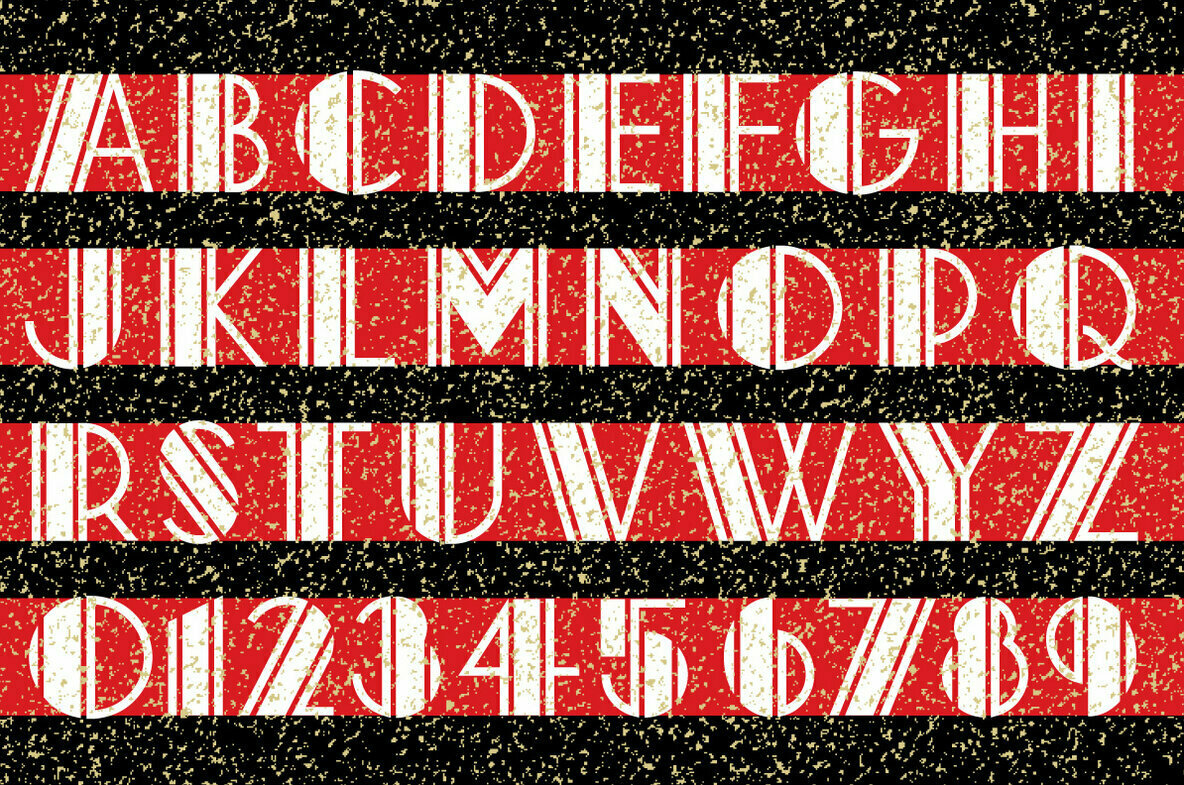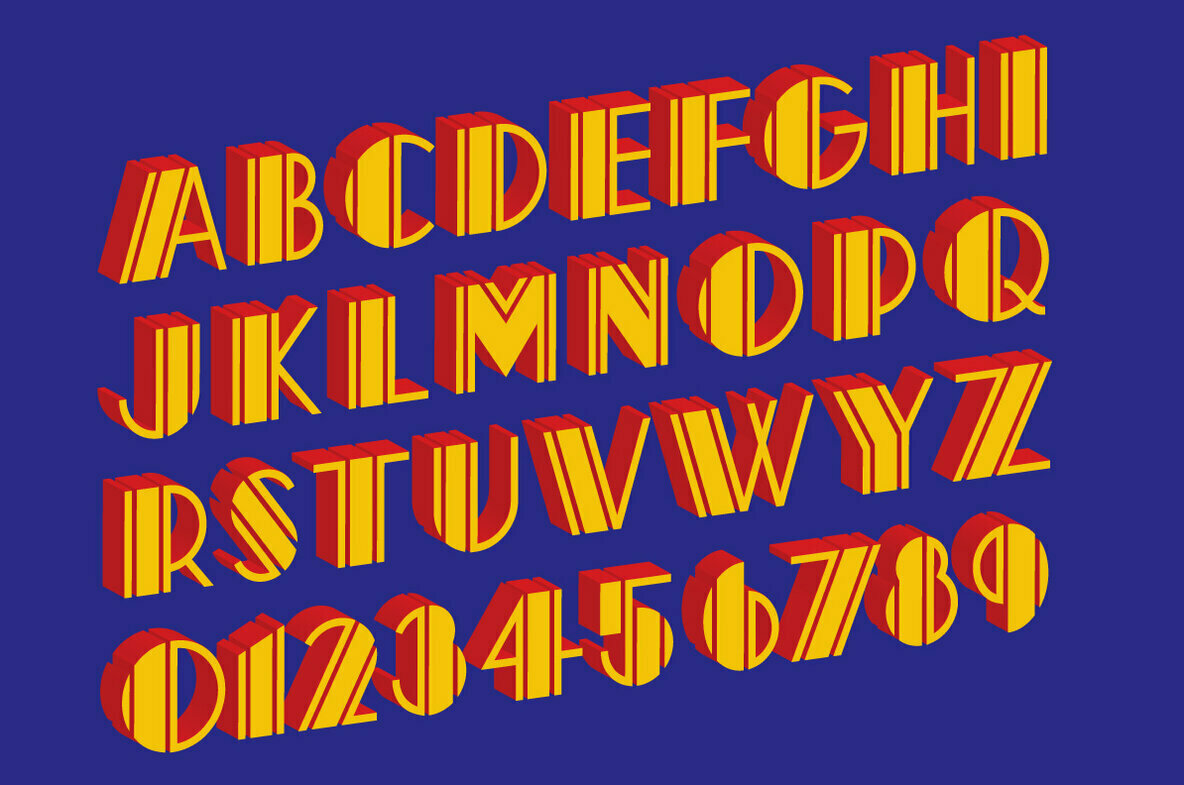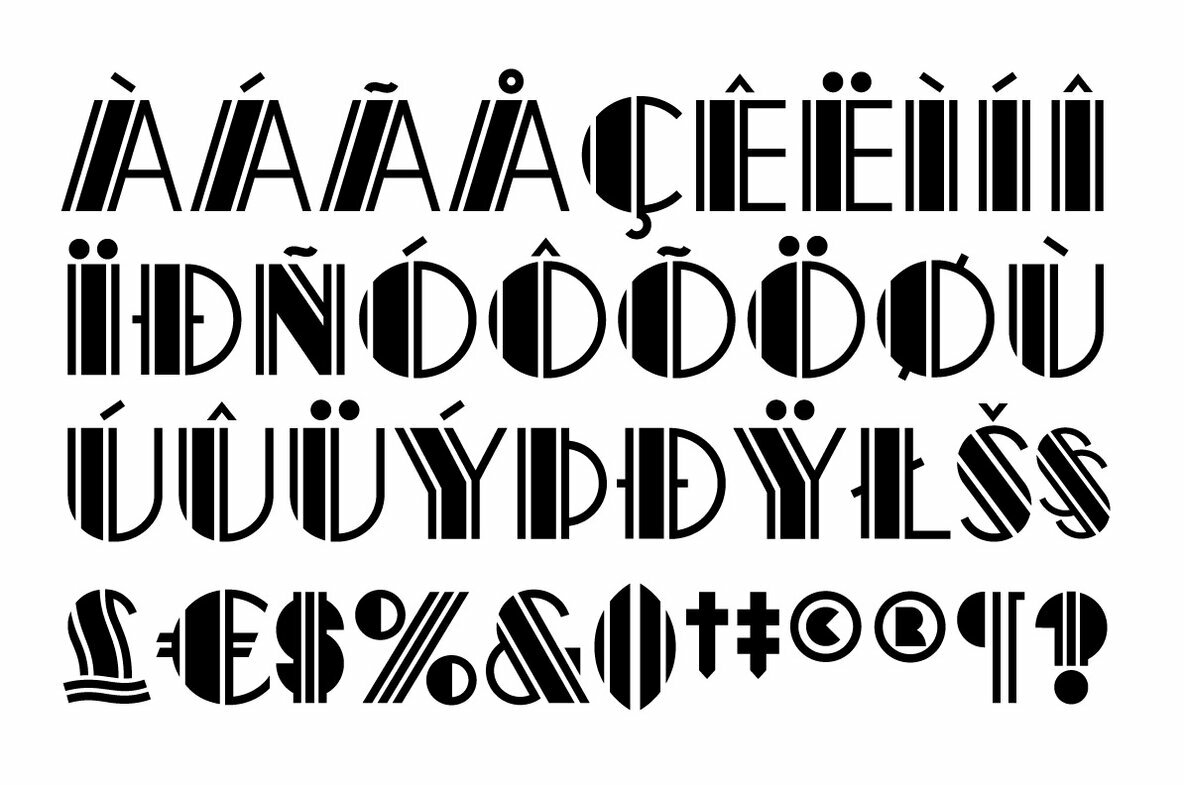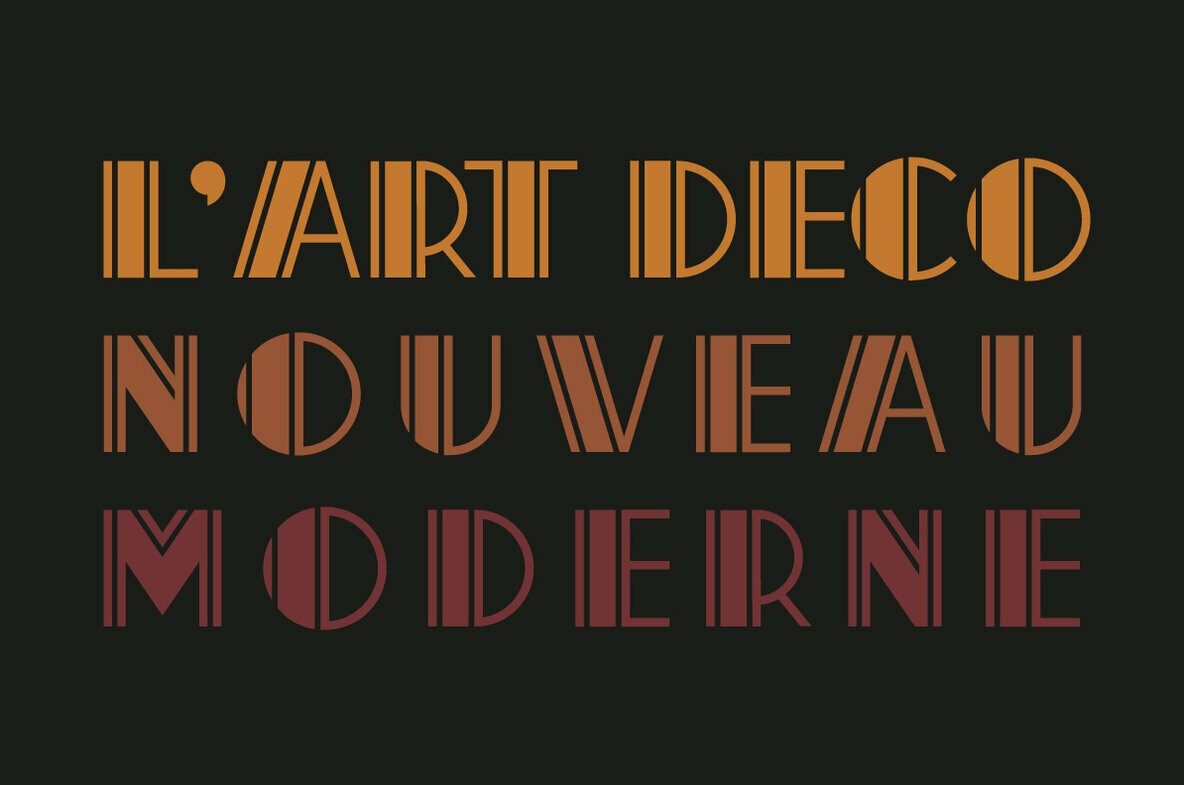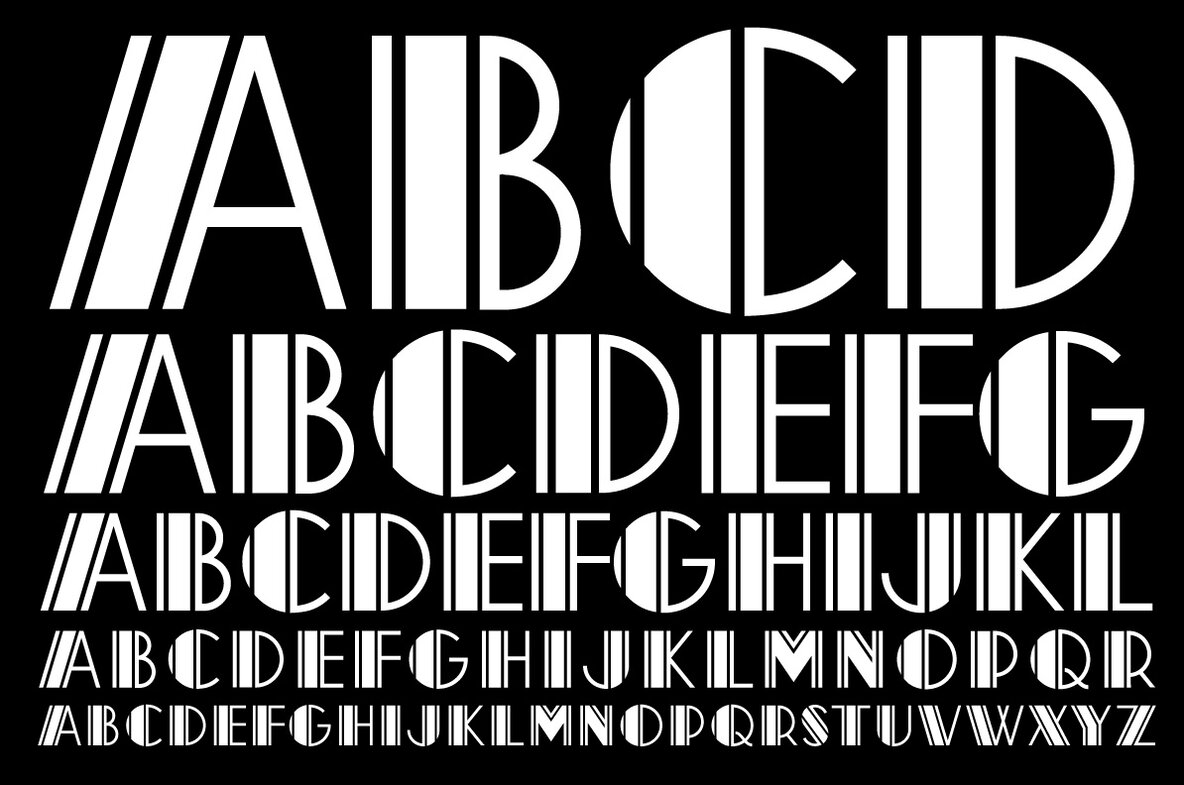
Neroli is an oil distilled from the blossom of the bitter orange tree and used extensively in perfumery. Its scent is sweet, honeyed with green and spicy facets. The eponymous OpenType font is of tidy Art Deco construction and will lend its own unique bouquet to any typographic composition.